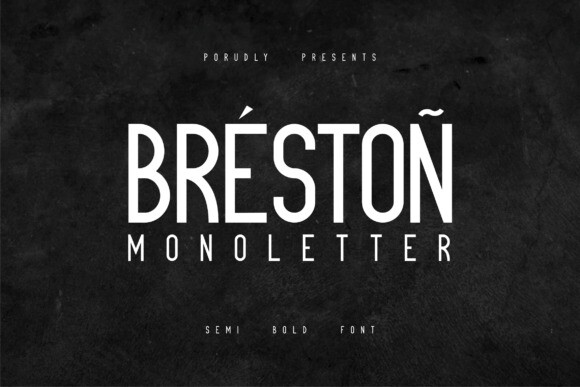
Breston Monoletter Font
is a font from the bold sans serif family, for writing jobs that require bold headings or shapes.
This font is usually found in magazines, books or warning signs, or also on solid building products, metal or the like.